Beebas Neue and League Gothic are my favorite narrow fonts that can fit a lot of text in a headline, and give that industrial modern look to a slide. And best of all, they are open source.
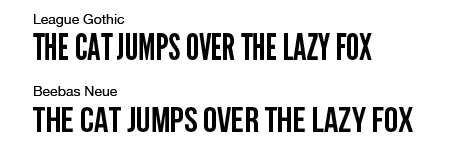
Beebas Neue and League Gothic are my favorite narrow fonts that can fit a lot of text in a headline, and give that industrial modern look to a slide. And best of all, they are open source.